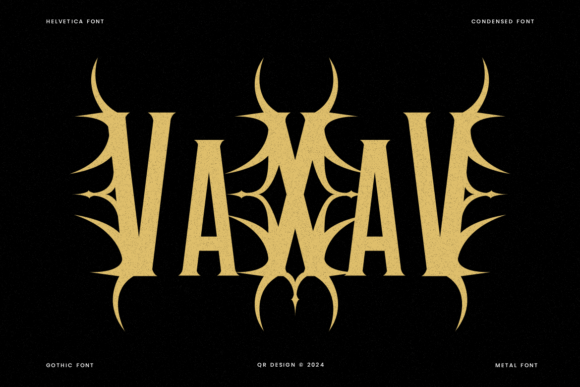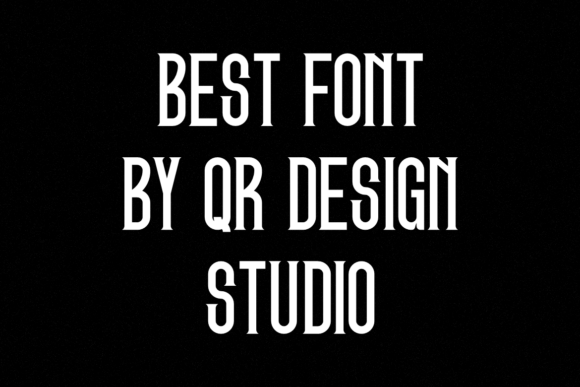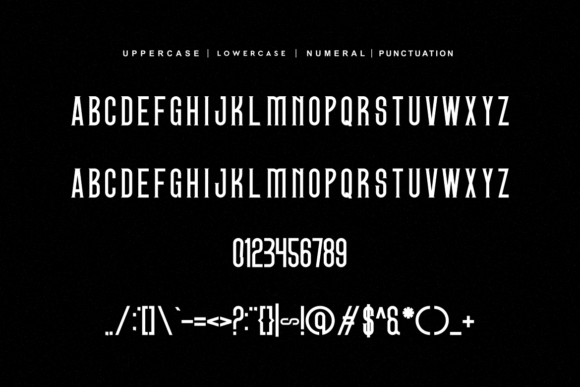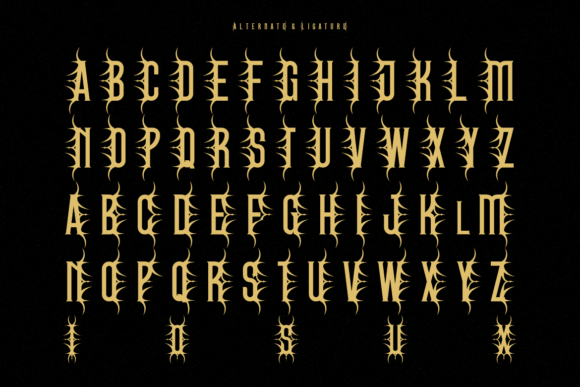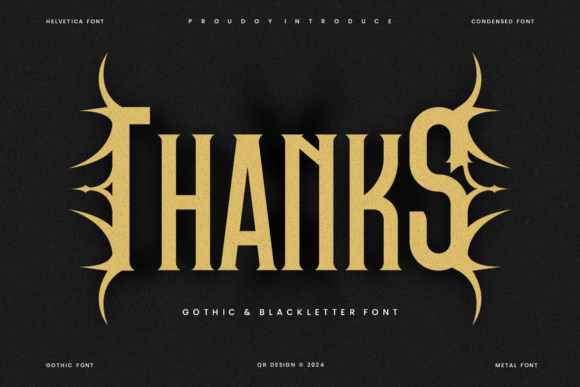
The Power of Doxog Font: A Bold and Versatile Blackletter Font
An Honest Review of Doxog Font
- ✨ Bold and Thick Lettering: Doxog font boasts a robust and striking blackletter style that’s perfect for making a statement.
- ✅ PUA Encoded: The font is PUA encoded, which means you can easily access all the glyphs and swashes, giving you endless creative possibilities.
- 🎨 Versatility: Doxog font can be used for a wide range of projects, from crafting and design to digital art and typography.
Now, no font is perfect, and Doxog has a few minor quirks:
- 🤔 Limited Use Cases for Light Backgrounds: Due to its bold nature, Doxog font might not be the best choice for light or white backgrounds. However, with a little creativity, you can still make it work!
- ⚠️ Some Swashes May Not Display Properly: As with any font, some swashes or glyphs might not display correctly on certain devices or software. But don’t worry, this is an easy fix!
The Story Behind Doxog Font
While the origins of Doxog font are shrouded in mystery, it’s believed to have been inspired by traditional Gothic typography. The font’s creator aimed to craft a bold, yet elegant font that would add a touch of sophistication to any design. And, judging by its popularity, they’ve certainly succeeded! 😊
| Font Name | Doxog Font |
| Author | qrdesignstd |
| What is the best use case for Doxog font? | Doxog font is perfect for projects that require a bold and striking blackletter font, such as Gothic-inspired crafts, digital art, and typography. |
| Is Doxog font suitable for body text? | Due to its bold nature, Doxog font is best suited for headlines, titles, and short paragraphs. For body text, consider using a clearer font. |